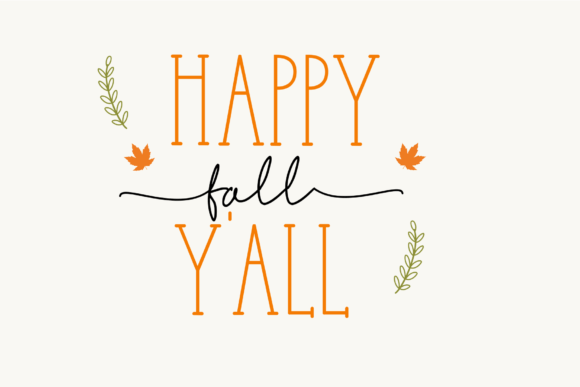
Pumpkin Font
Presenting Pumpkin, a delightfully simple yet sophisticated pairing of handwritten and sans serif styles. Sport a refreshing, thin line style, Pumpkin oozes versatility and an understated elegance. No matter the context or project, this font duo breathes life into your designs, enhancing their appeal. An unmissable treasure, Pumpkin possesses the power to seamlessly blend with any creative project and amplify its aesthetic value, making it an invaluable addition to your font repertoire. Explore the endless possibilities with Pumpkin, your next favorite go-to font for any occasion.